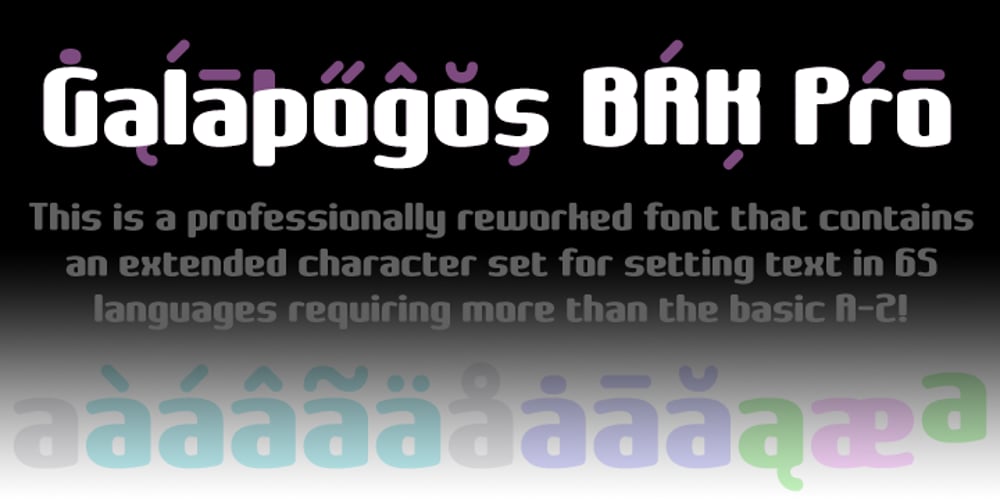
Galapogos BRK Pro Font Family was designed by Roger S. Nelsson, Brian Kent and published by CheapProFonts. Galapogos BRK Pro contains 1 styles and family package options. A very chunky and rounded font. I have shortened the r and t, increased the size of the dots, and tweaked a little here and there – before expanding the character set substantially. I actually like the font so much that I also used it for the CheapProFonts logo! ALL fonts from CheapProFonts have very extensive language support: They contain some unusual diacritic letters (some of which are contained in the Latin Extended-B Unicode block) supporting: Cornish, Filipino (Tagalog), Guarani, Luxembourgian, Malagasy, Romanian, Ulithian and Welsh. They also contain all glyphs in the Latin Extended-A Unicode block (which among others cover the Central European and Baltic areas) supporting: Afrikaans, Belarusian (Lacinka), Bosnian, Catalan, Chichewa, Croatian, Czech, Dutch, Esperanto, Greenlandic, Hungarian, Kashubian, Kurdish (Kurmanji), Latvian, Lithuanian, Maltese, Maori, Polish, Saami (Inari), Saami (North), Serbian (latin), Slovak(ian), Slovene, Sorbian (Lower), Sorbian (Upper), Turkish and Turkmen. And they of course contain all the usual “western” glyphs supporting: Albanian, Basque, Breton, Chamorro, Danish, Estonian, Faroese, Finnish, French, Frisian, Galican, German, Icelandic, Indonesian, Irish (Gaelic), Italian, Northern Sotho, Norwegian, Occitan, Portuguese, Rhaeto-Romance, Sami (Lule), Sami (South), Scots (Gaelic), Spanish, Swedish, Tswana, Walloon and Yapese.